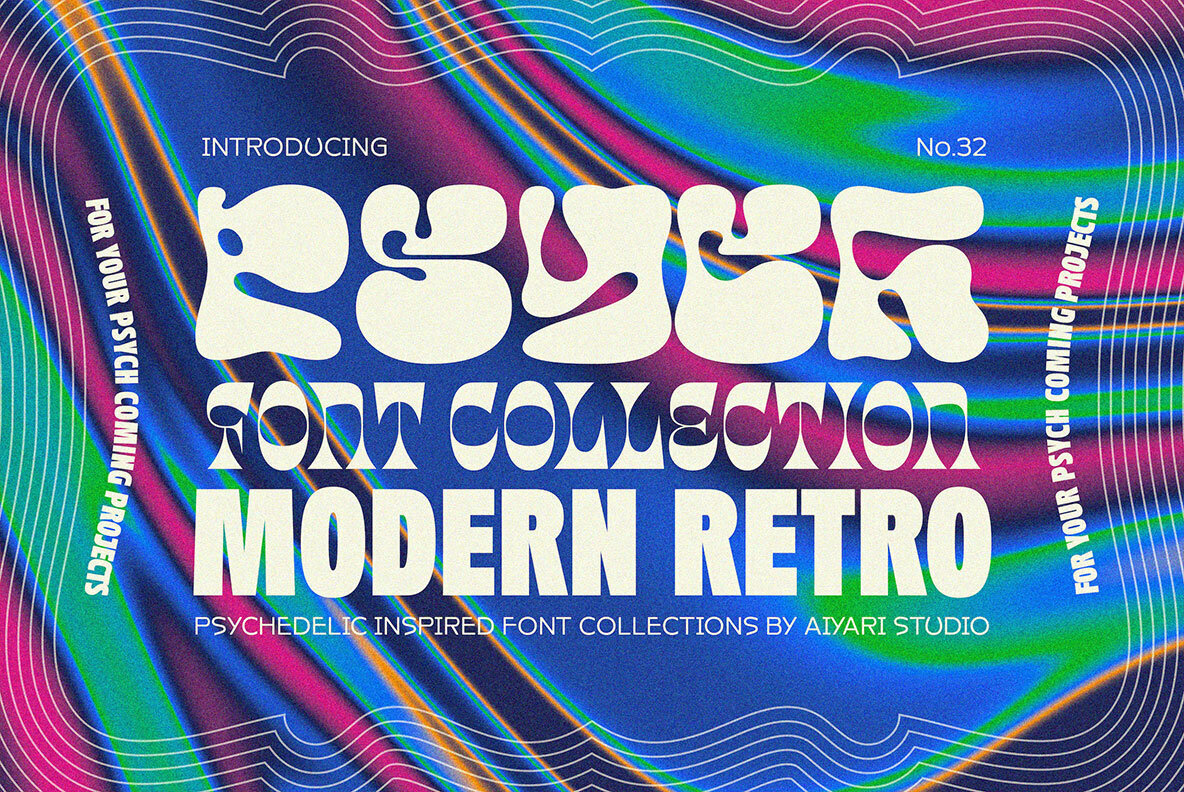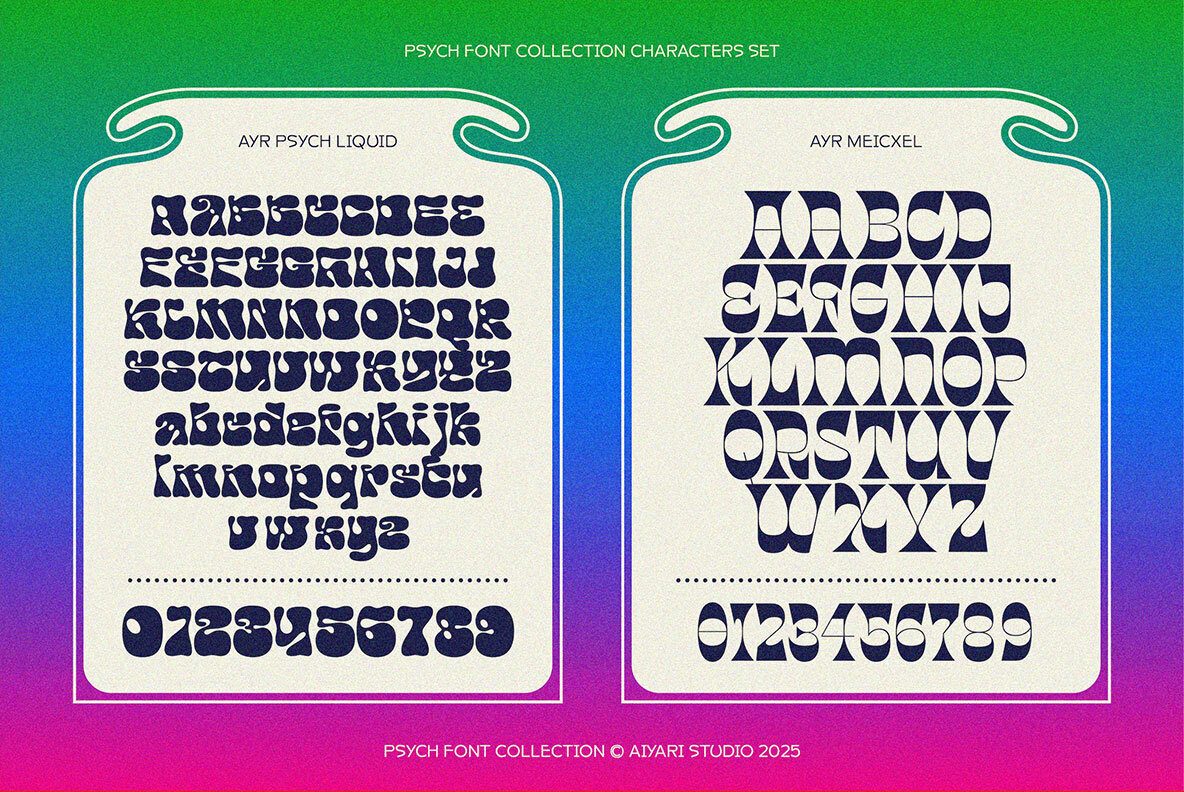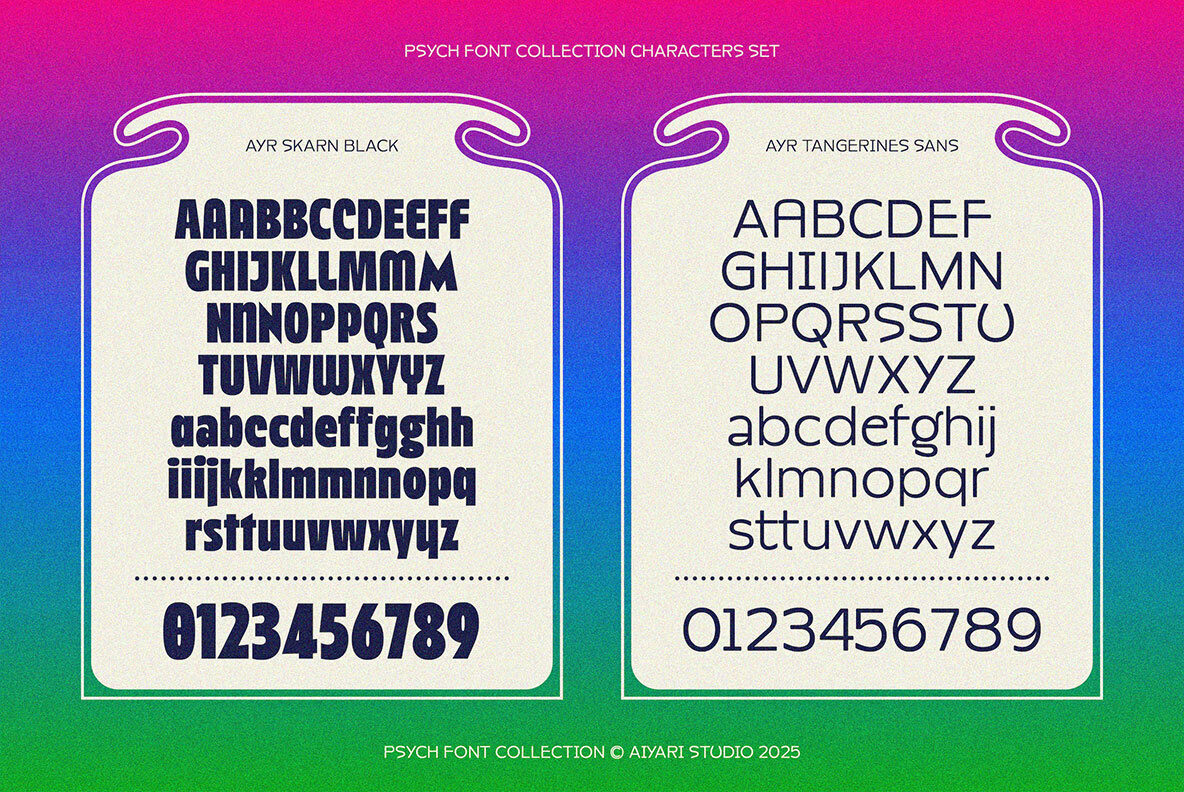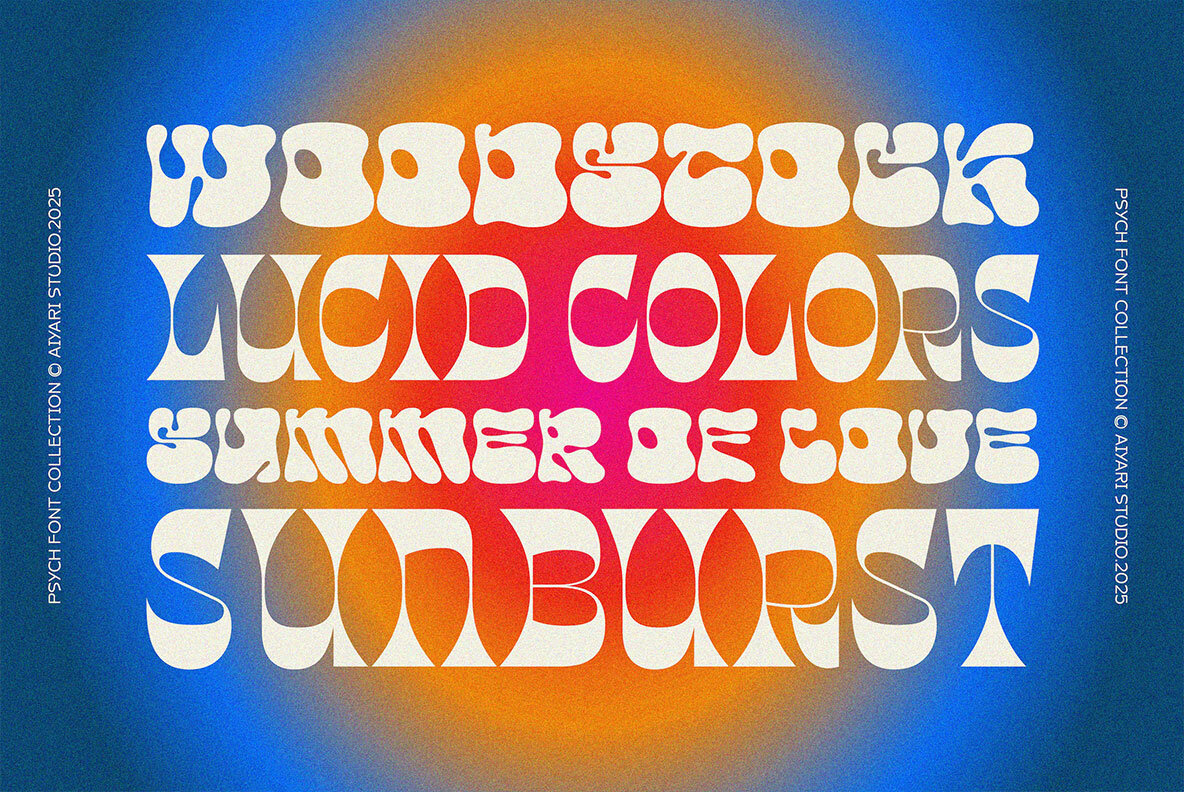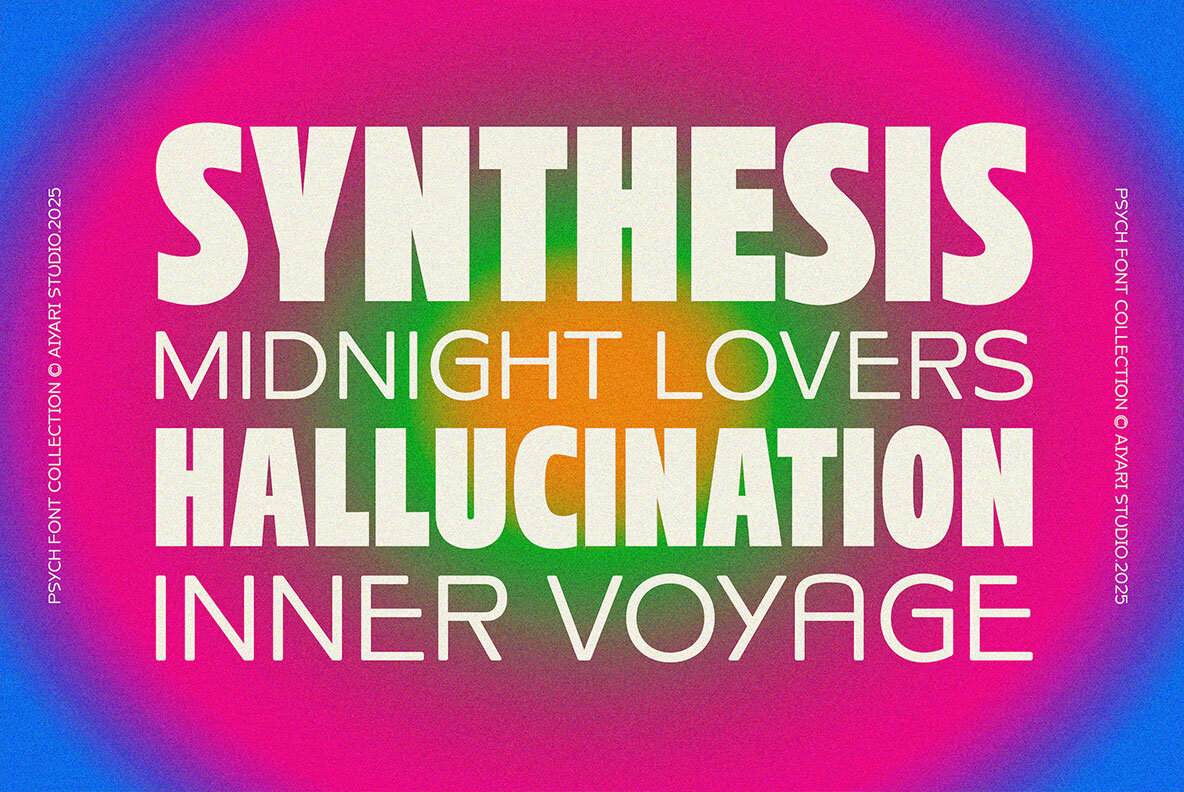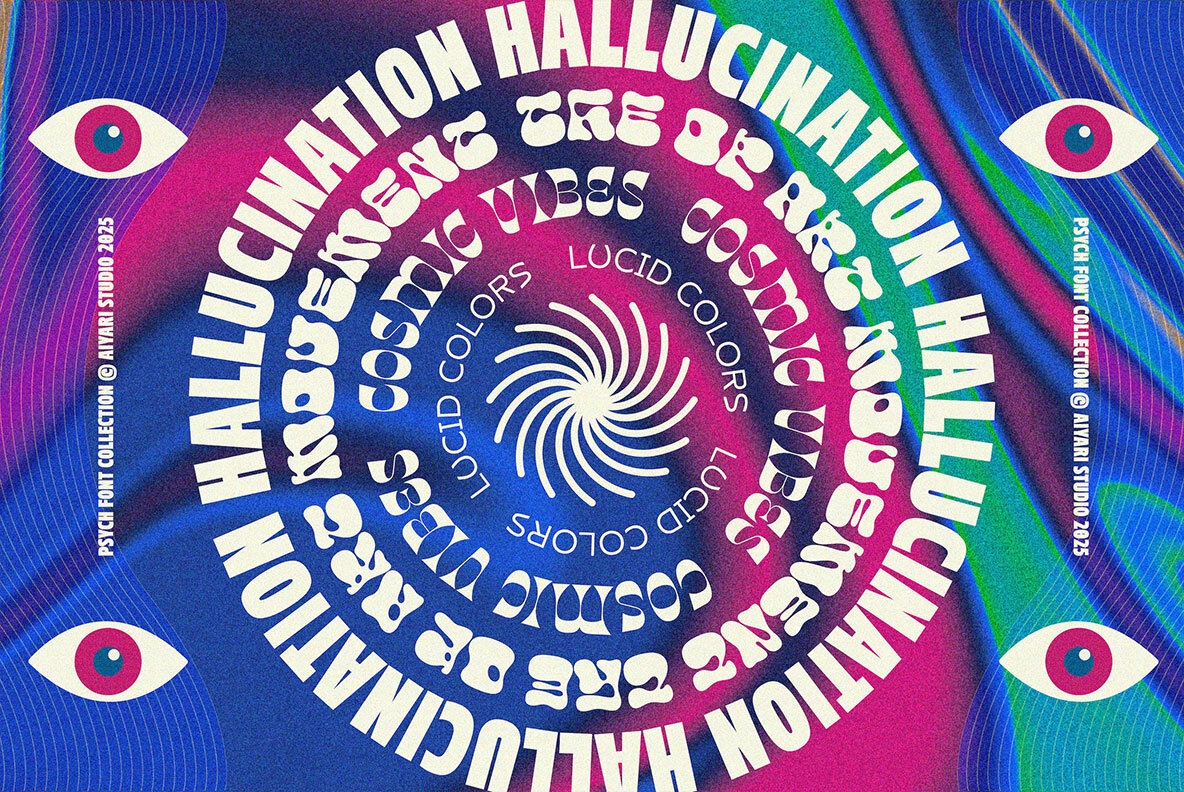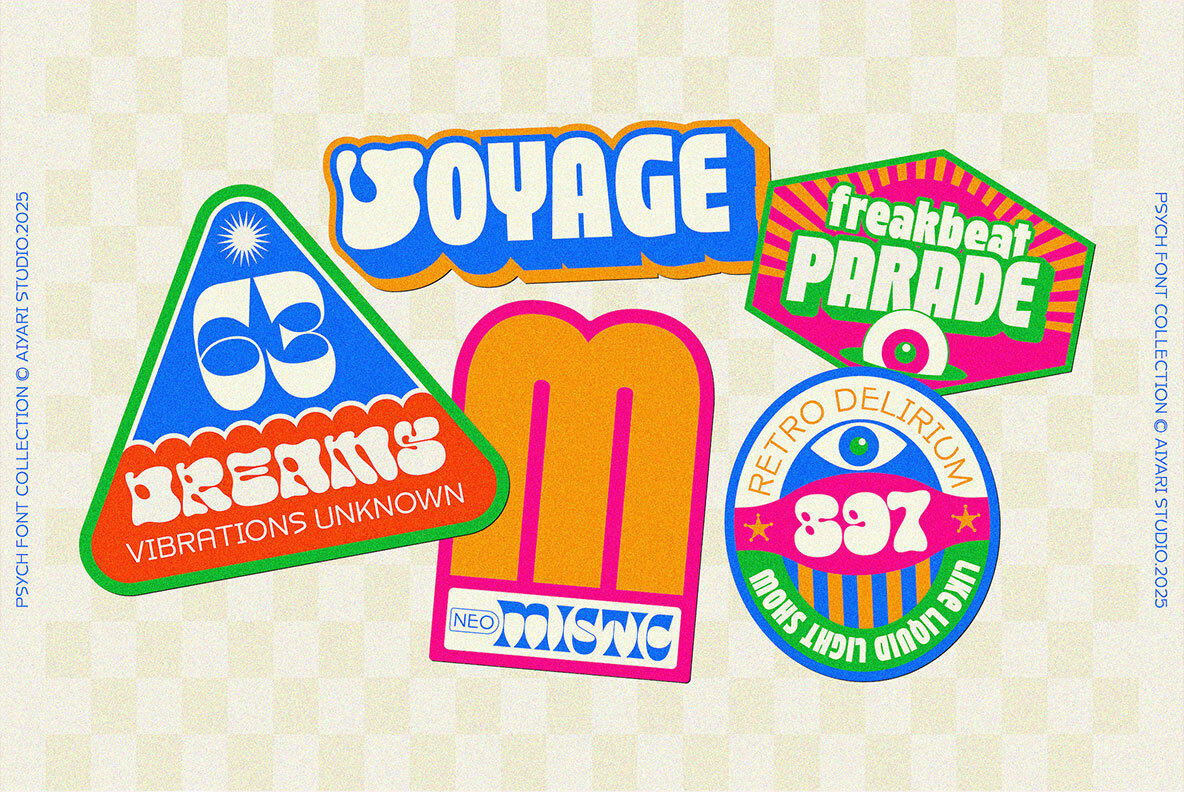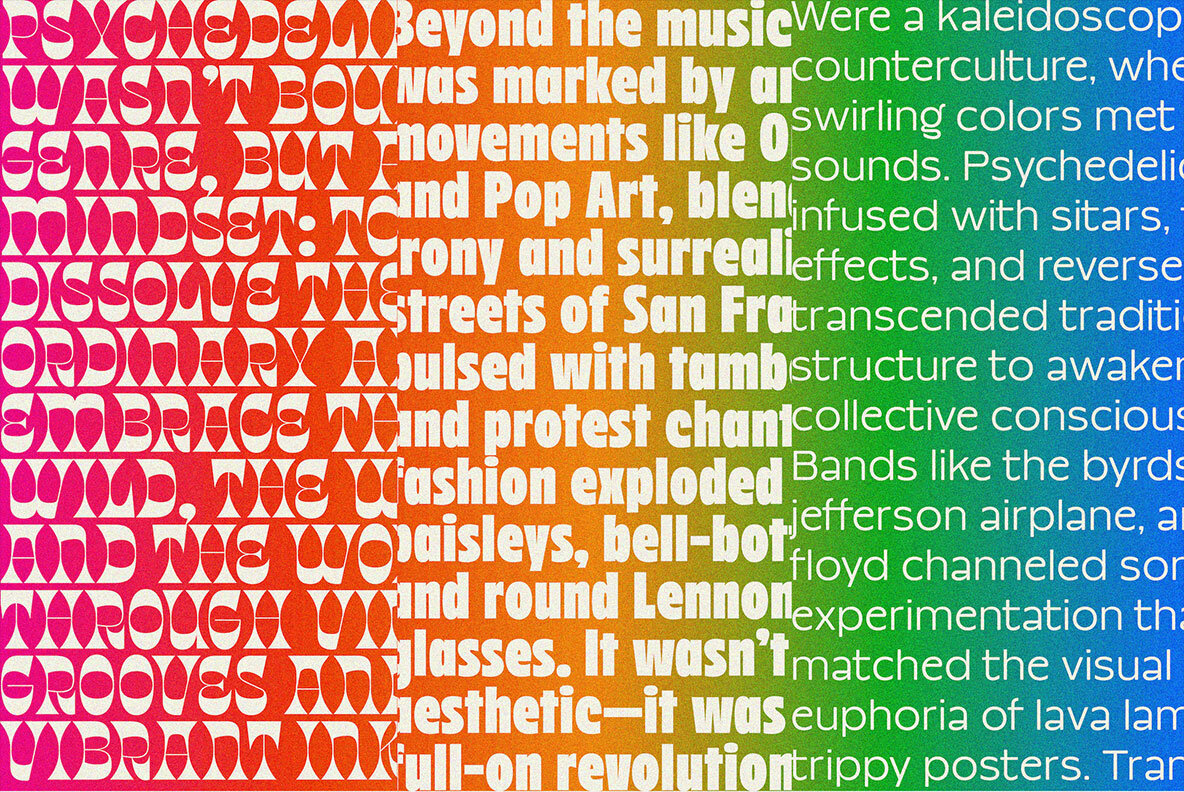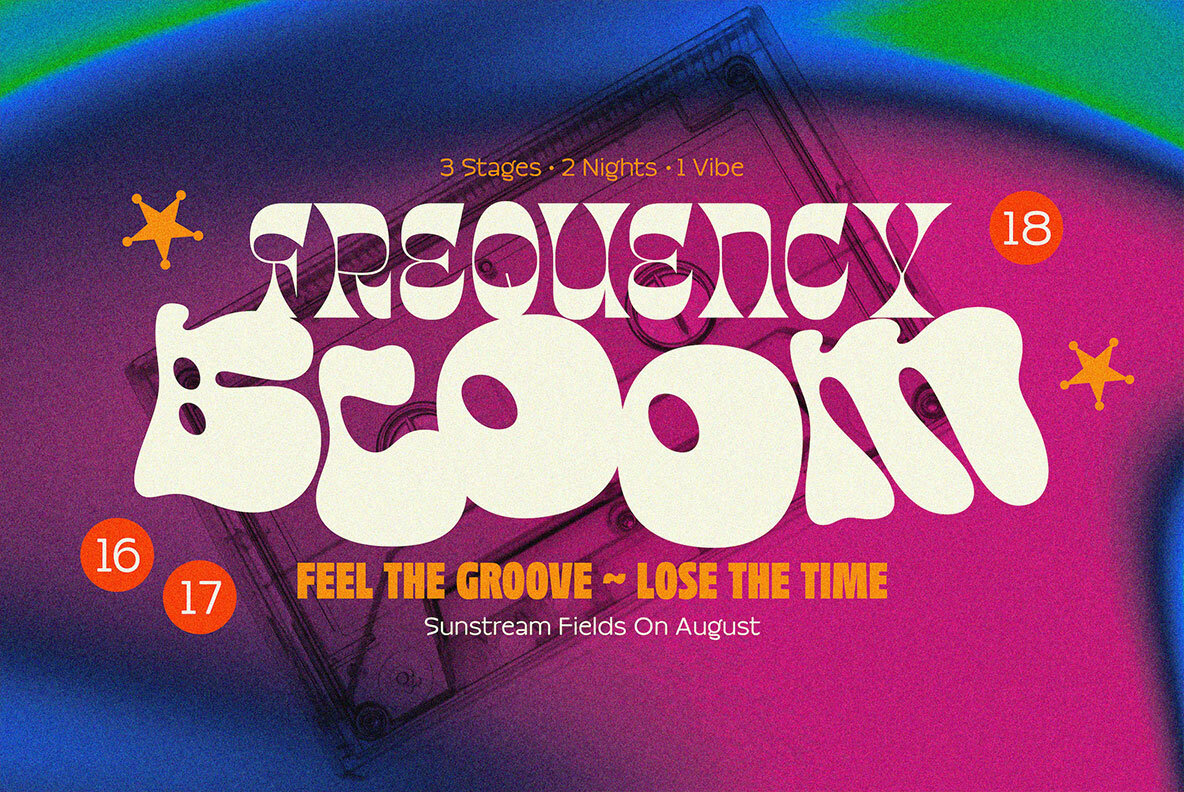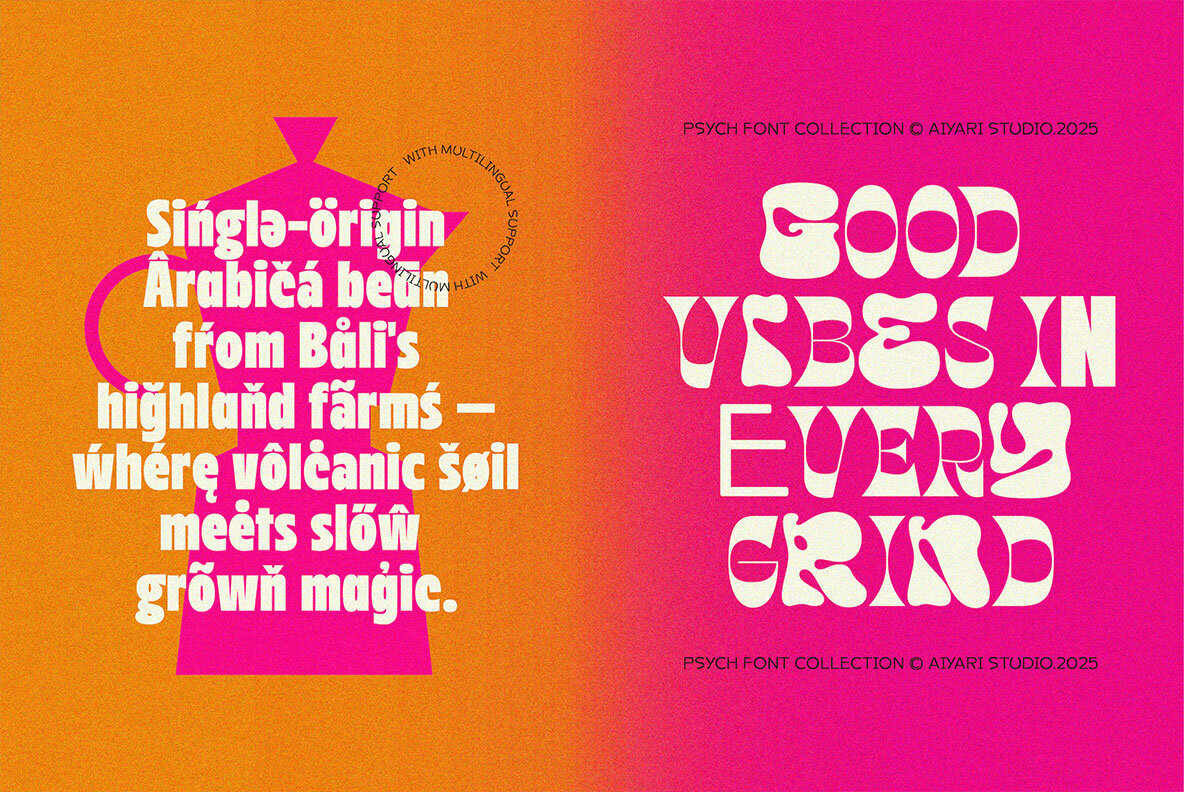
Psych Font Collection
Ayr Meicxel Regular
Ayr Tangerines Regular
Ayr Skarn Black
Ayr Psych Liquid
Dive into the colorful world of the Psych Font Collection, a thoughtful selection of four display typefaces that embody the vibrant essence of psychedelic design through a modern lens. Within this collection, each font showcases unique letterform treatments ranging from fluid and blobby shapes to sharp and ornamental outlines, all designed to expand the boundaries of typographic expression. Ideal Applications:Psych Font Collection: Embrace the Spirit of Psychedelic Design